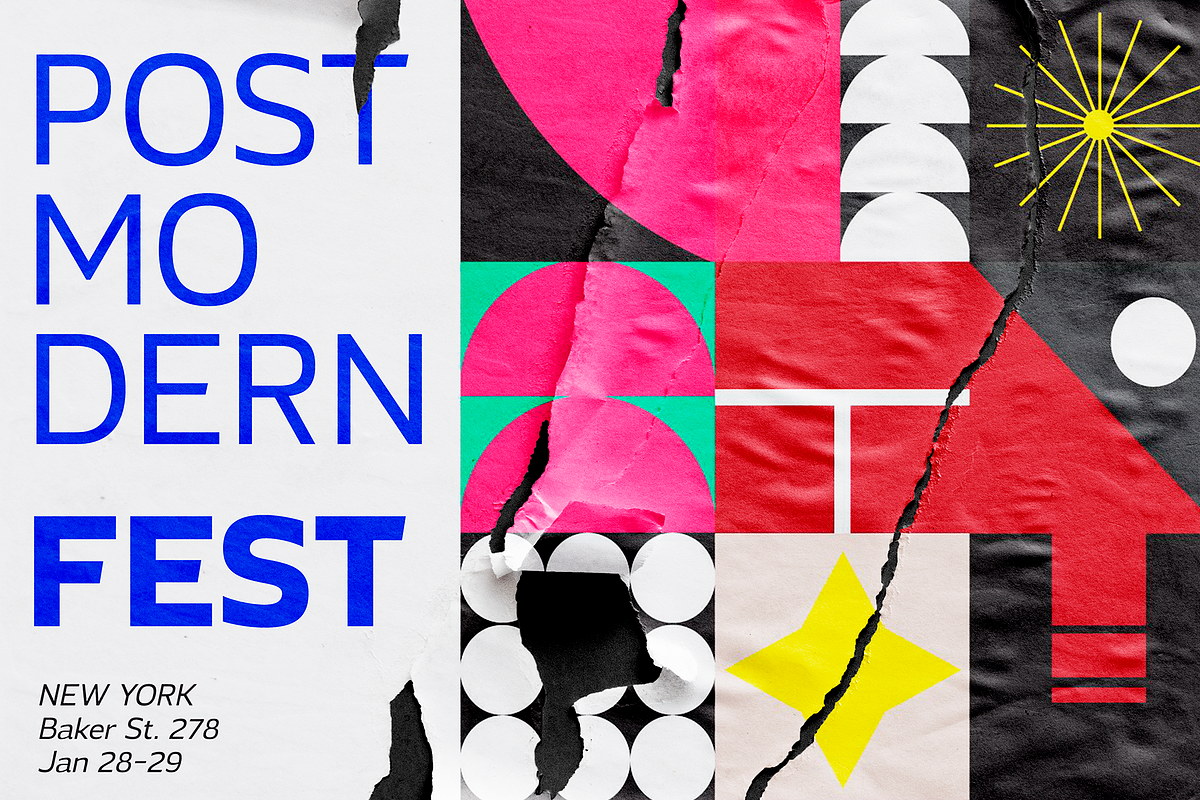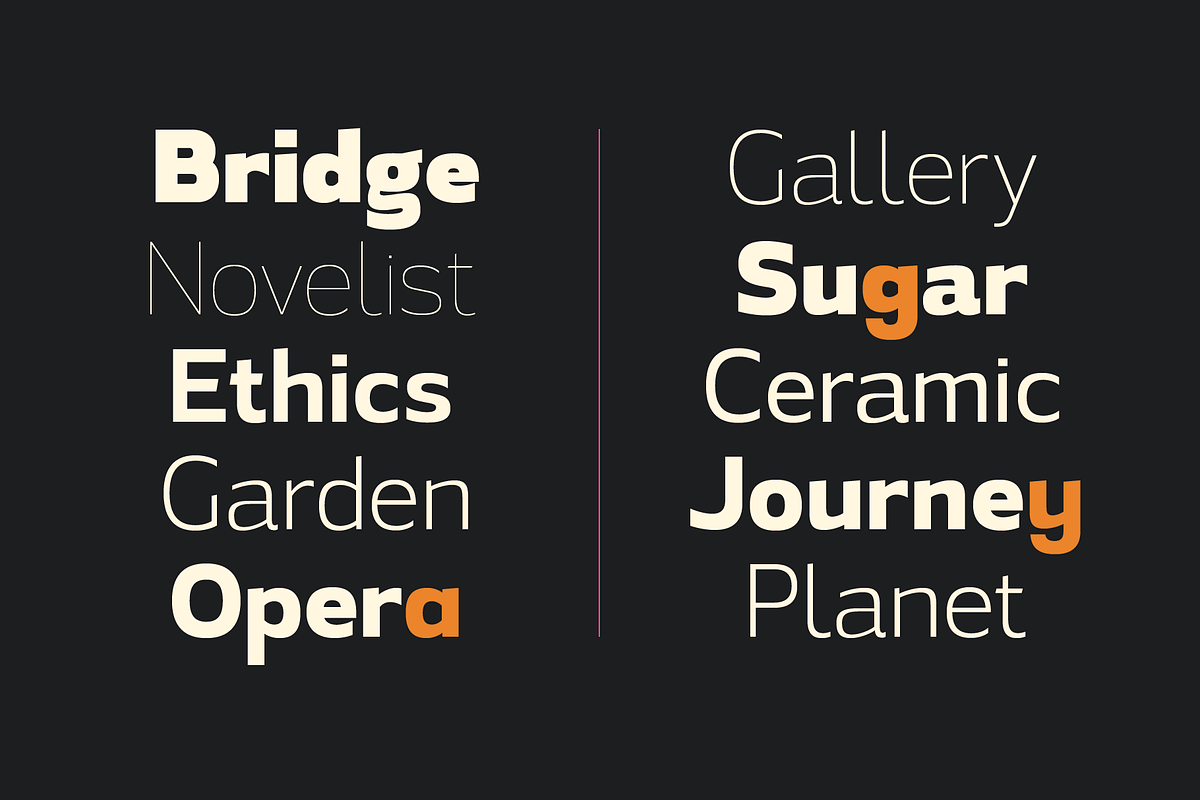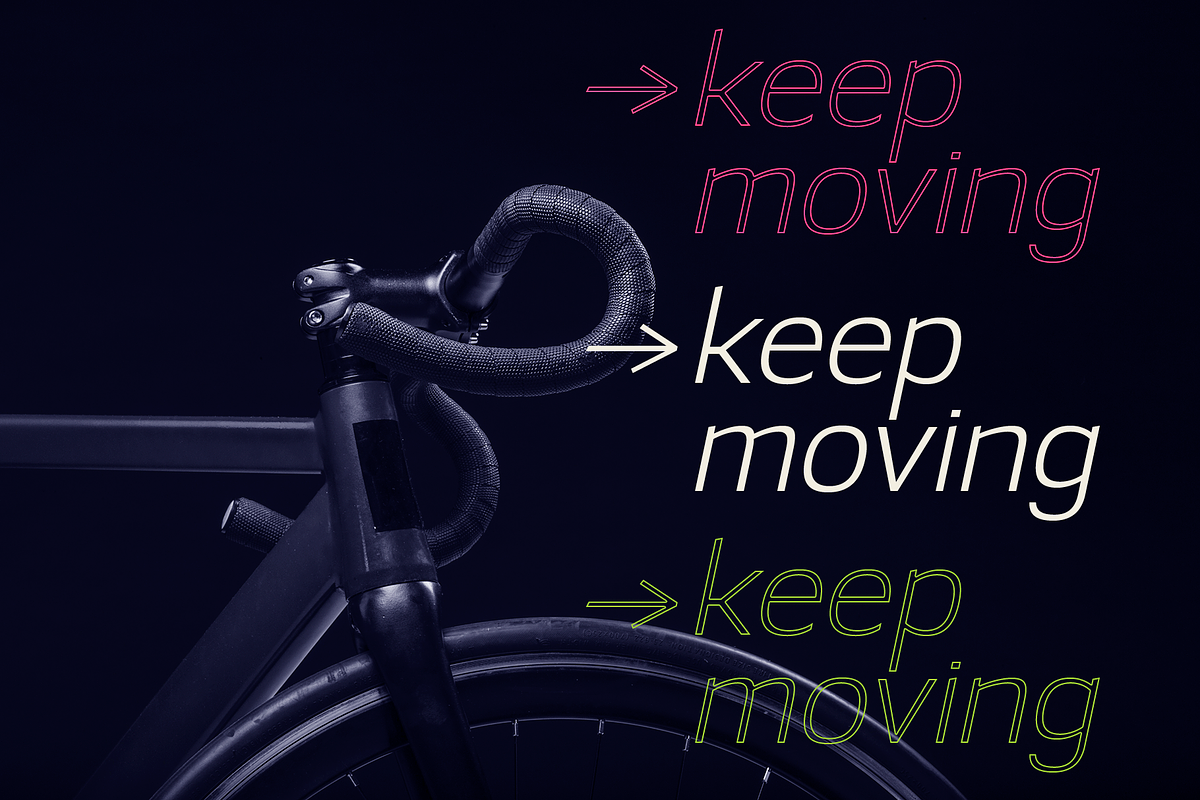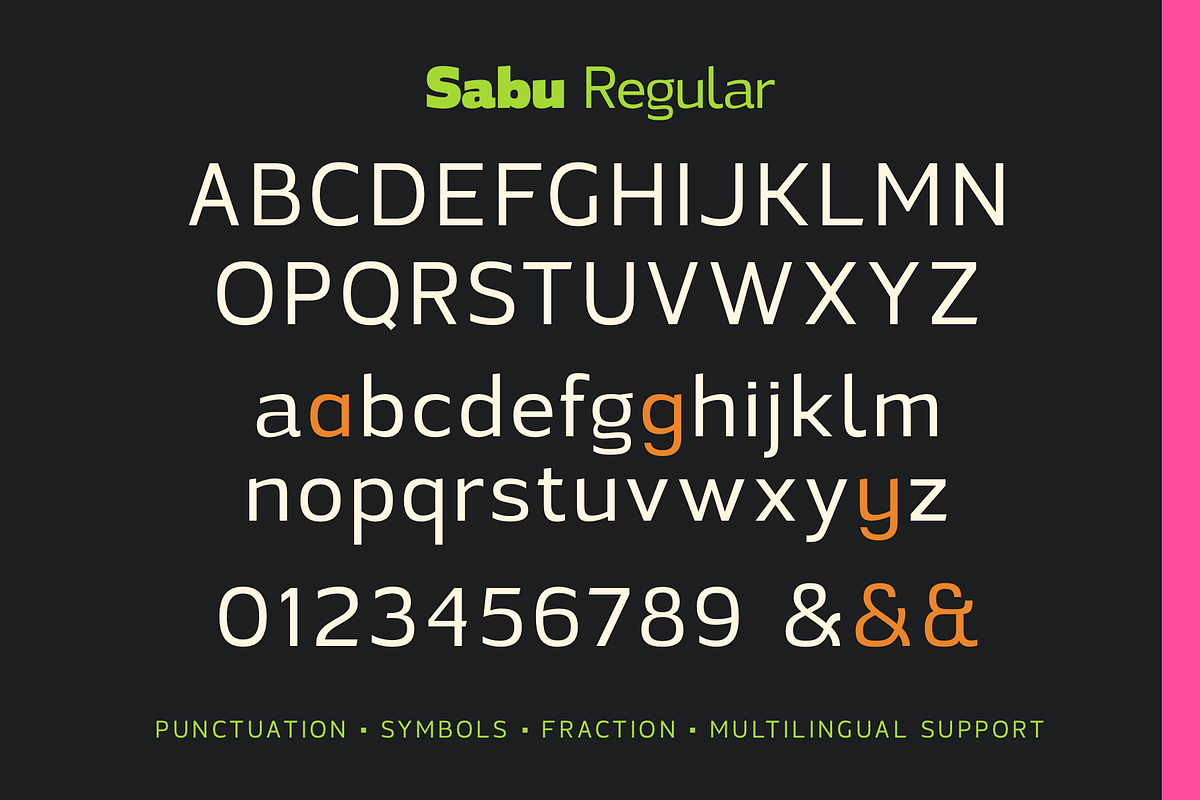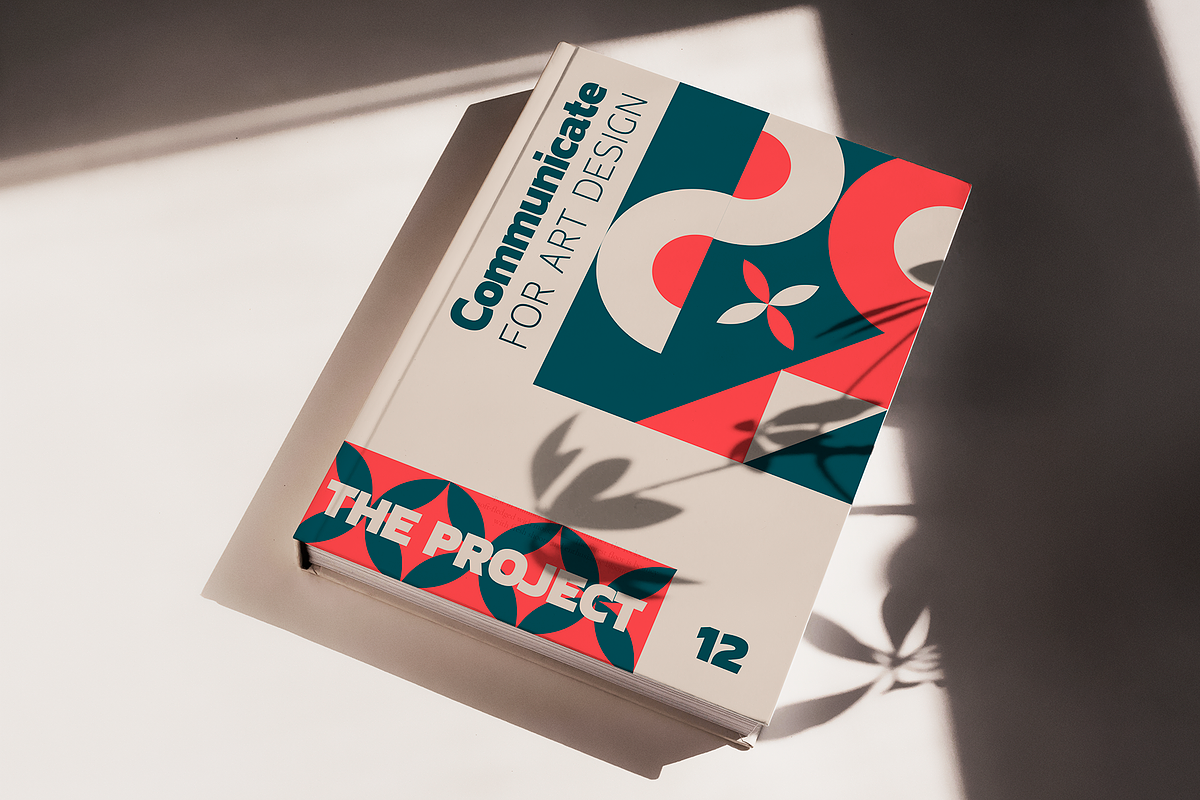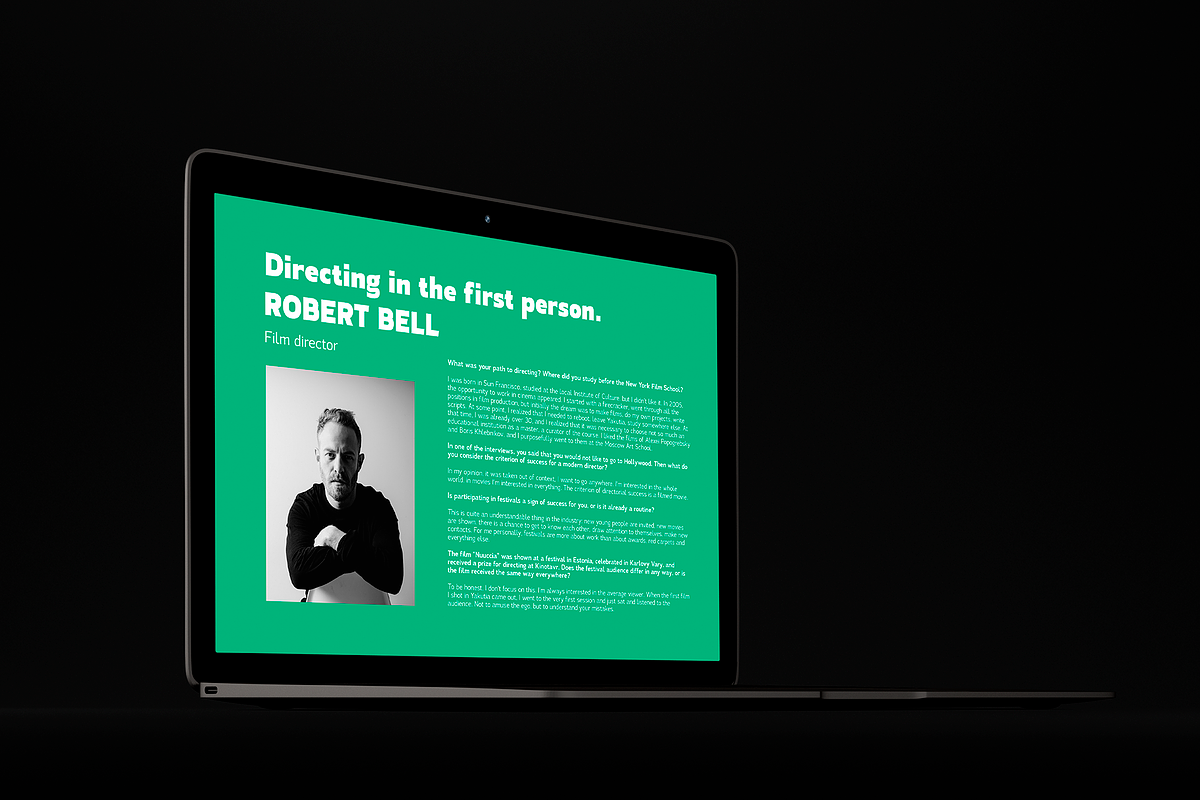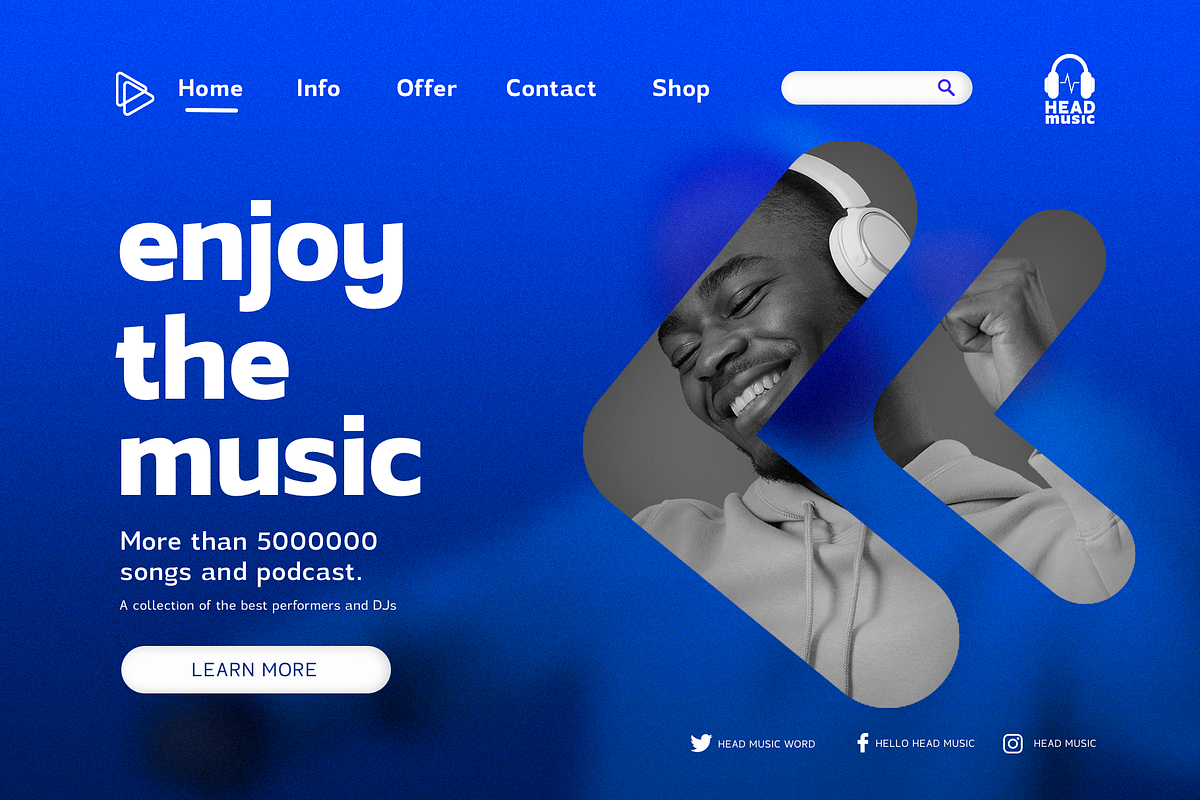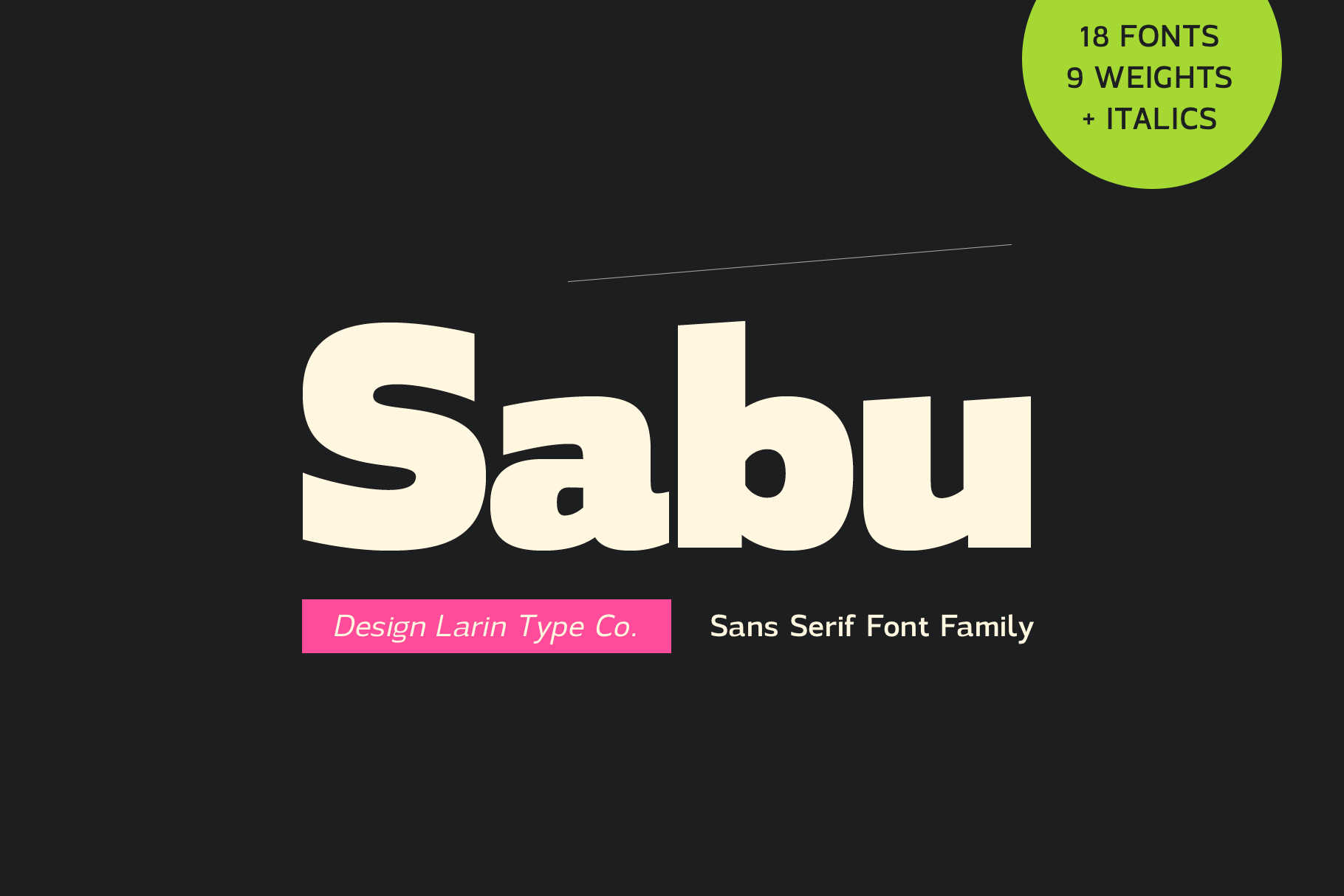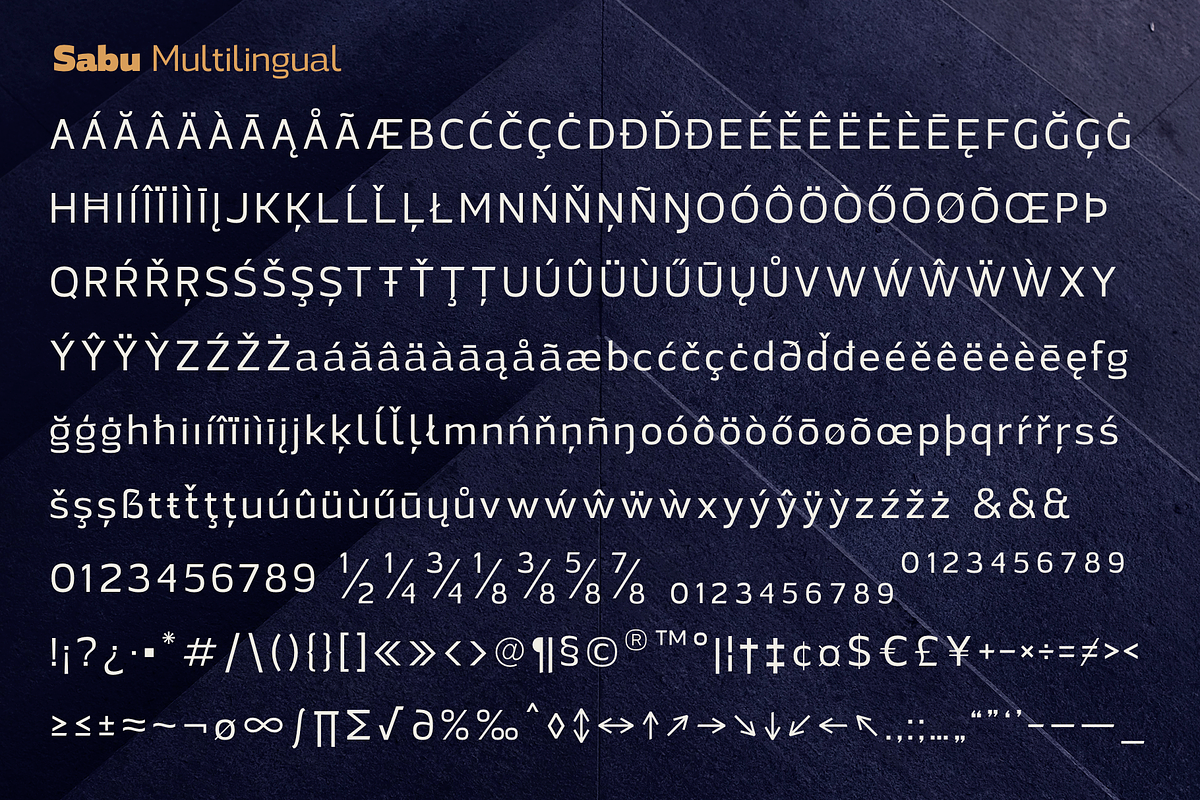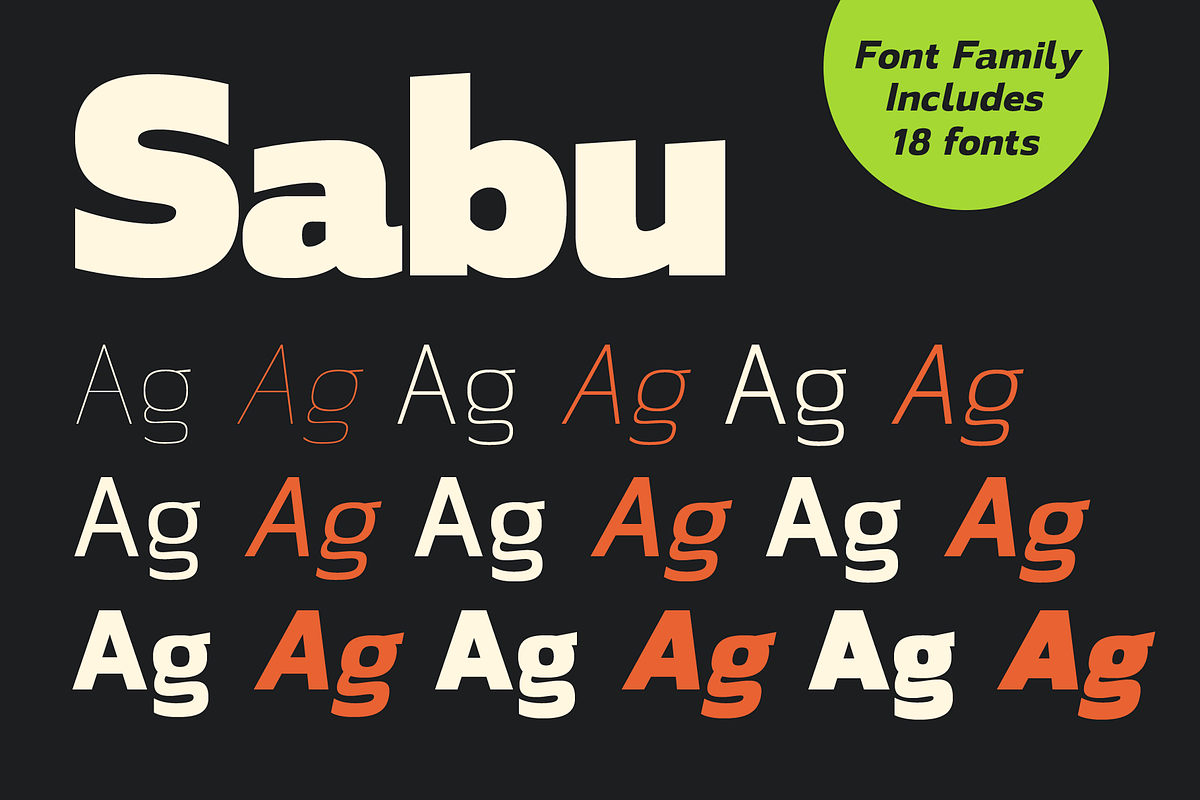
Sabu | Font Family
Sabu is multitasking, modern sans-serif font family, and a great solution for anyone your project. It includes upright and Italic style, each of them has weight weights from thin to extrabold. This is a multi-purpose one that is perfect for big and small text, it is constructed modern and easy to read. With it, you can create logos, banners, use in advertising, packaging, books covers and magazines, headings, descriptions and much more.
Following international symbols support: ÀÁÂÃÄÅĄÇĆÈÉÊËĘÌÍÎÏÐÑŃŁÒÓÔÕÖØÙÚÛÜŚŠŸÝŹŻŽßàáâãäåçèéêëìíîïðñòóôõöøùúûüýÿąćęłńśšźżž
18 fonts
Full alphabet with Uppercase and Lowercase A-z
Stylistic alternates for lowercase "a, g, y"
Numbers, fractions
Punctuation and symbols